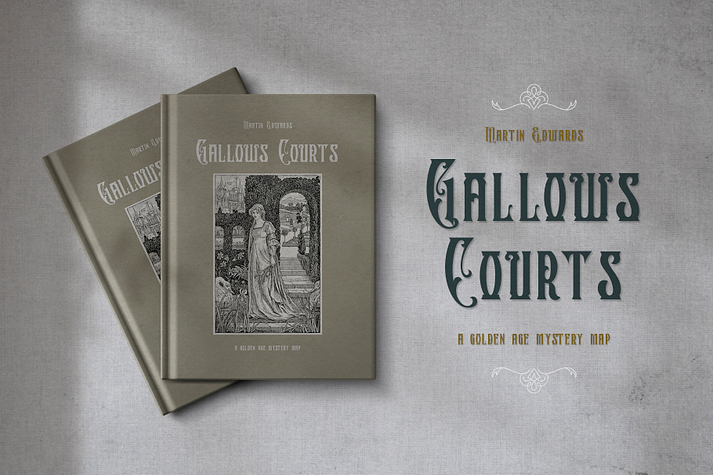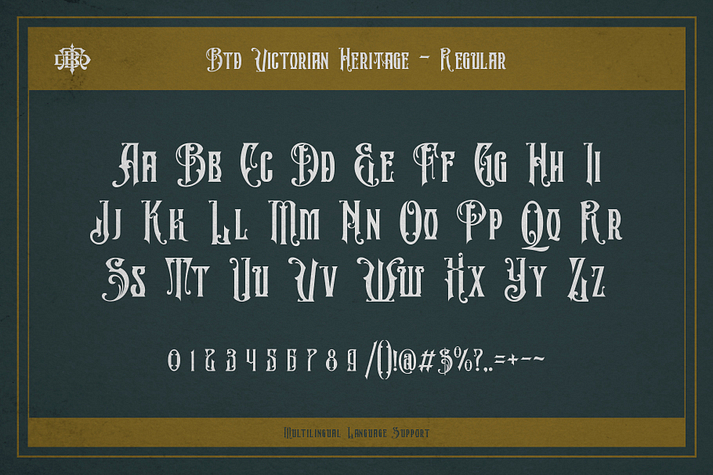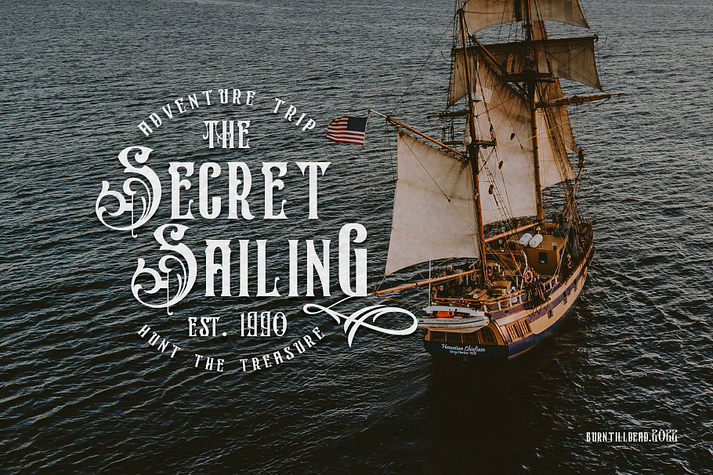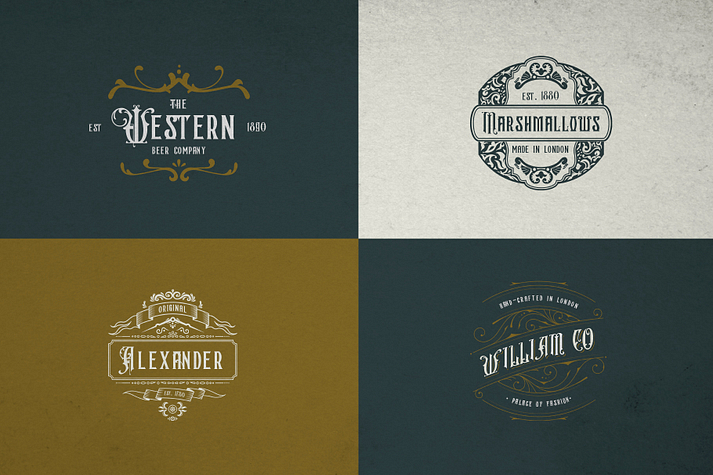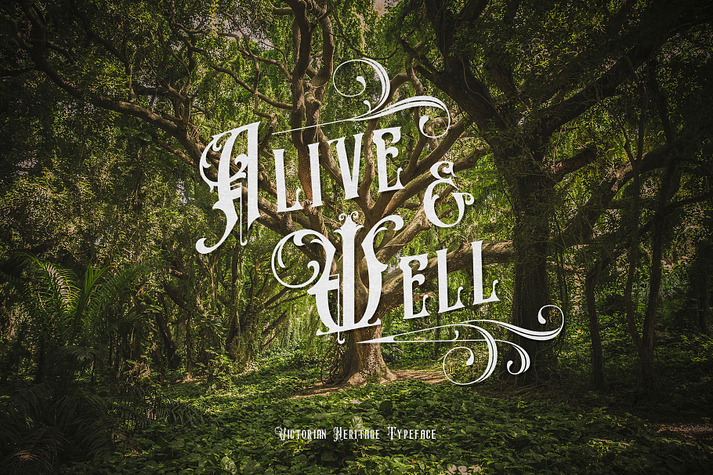
Victorian Heritage
Victorian Heritage is a font family. This typeface has two styles and was published by Burntilldead.
Make your designs looks memorable, vintage and classy with Victorian Heritage typeface. Really easy way to bring the old memories into your document, poster, logo, etc… Perfect choice for classical choice.
Very victorian, ornamental, decorative and classical. A solid combination that can bring your design, logo, document, website, etc. back to 1800 decade. Powered with regular style & decorative alternate style version. Multilingual font and playful one with alternate characters.
OPENTYPE FEATURES - Alternate characters for uppercase and lowercase is ready to decorate your logo. some ligature characters is automatically turn on when you type 2 characters. You just need turn on Contextual Alternates. Usually Adobe Photoshop and other programs activate it by default.